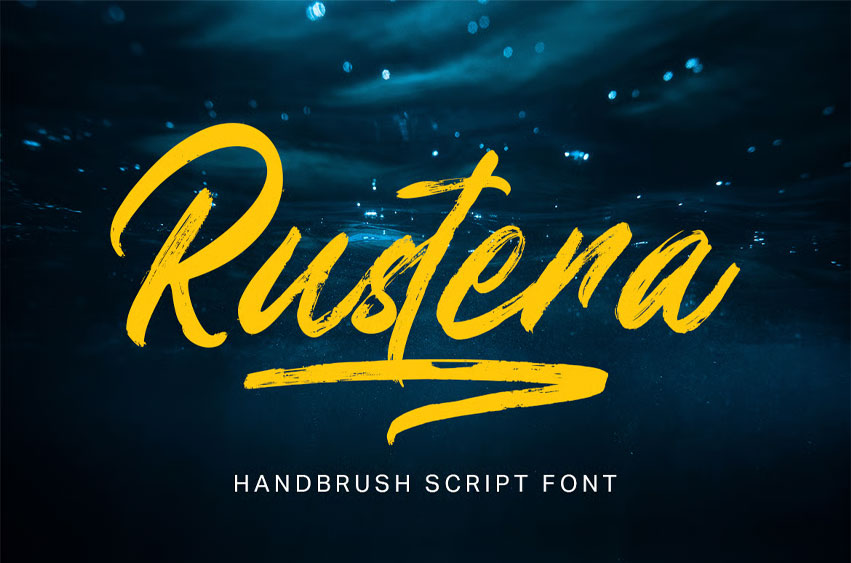
Rustera Font Dive into creative fluidity with Rustera, an authentic handbrush script font that captures the spontaneous grace and rugged texture of real brush lettering.
This typeface embodies a dynamic, free-spirited energy, perfect for projects that require a genuine, personalized touch and a sense of swift motion. Rustera is not just a font; it’s a piece of art, conveying immediate style and expressive personality.
• Unique Hand-Drawn Style